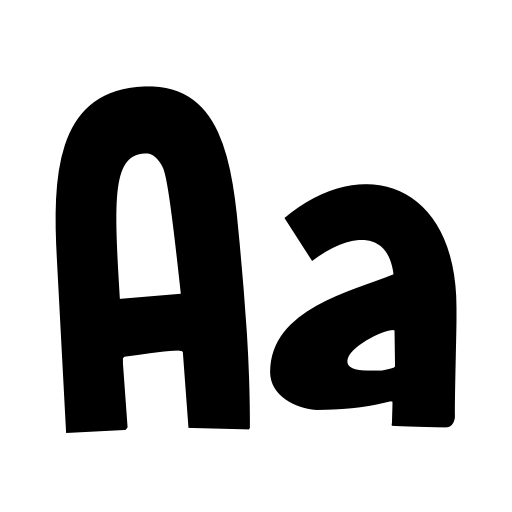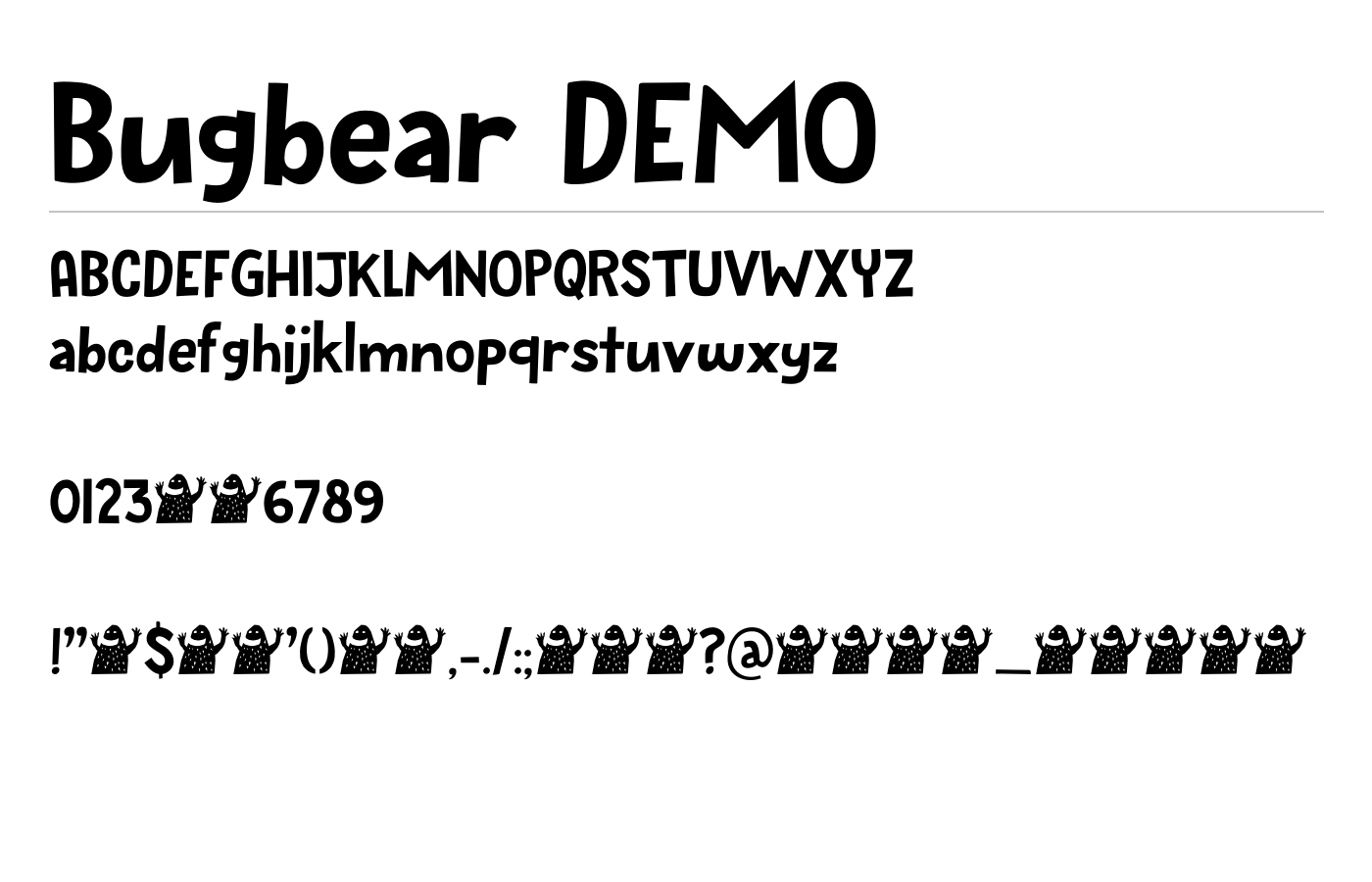
Bugbear DEMO is a playful sans serif font featuring irregular, hand-drawn letterforms with a bold weight and slightly condensed width. Its quirky shapes and varying stroke angles give it a fun, informal personality, ideal for children’s books, casual branding, and creative projects that want a lively, approachable feel. This font works best at headlines or display sizes where its unique charm can stand out and bring a sense of whimsy.
Bugbear DEMO Font
About Bugbear DEMO Font
| Font family | Bugbear DEMO Font |